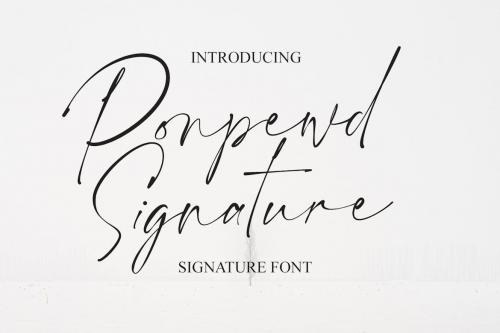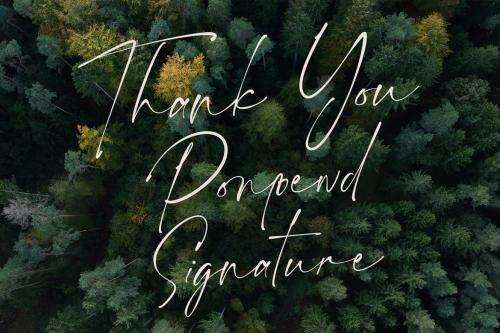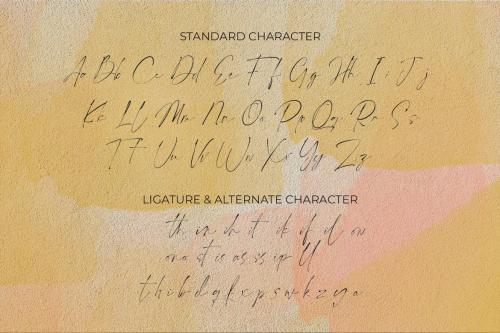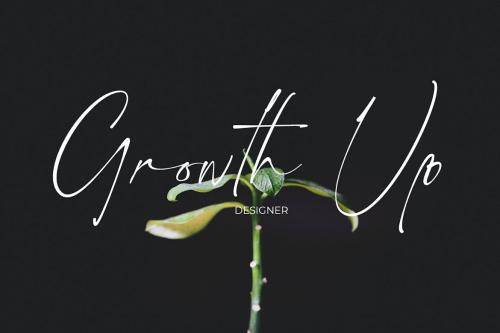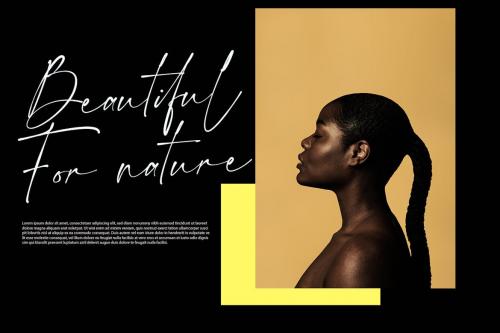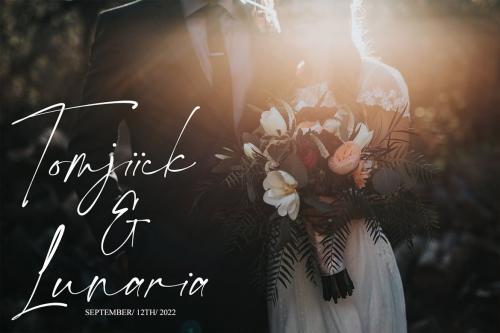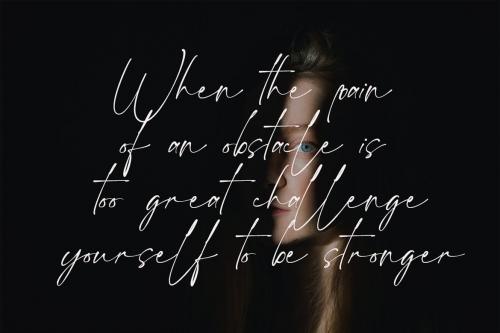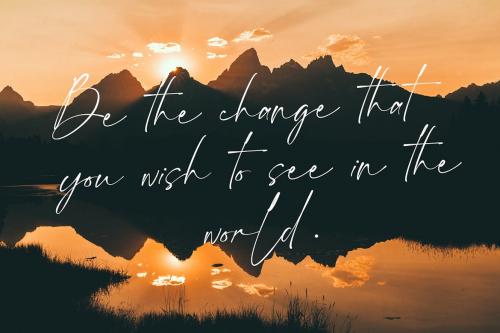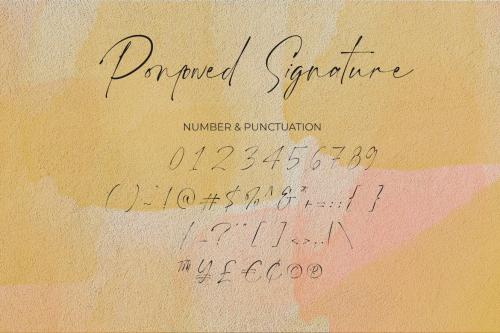
ponpewd签名 script笔刷 字体
Ponpewd Signature Script Brush Font
Ponpewd is a Signature Script Brush Font. With bold mono-line stroke, slant and fun character with a bit of ligatures. To give you an extra creative work. Ponpewd font support multilingual more than 100+ language. This font is good for logo design, Social media, Movie Titles, Books Titles, a short text even a long text letter and good for your secondary text font with sans or serif. Make a stunning work with Ponpewd font.